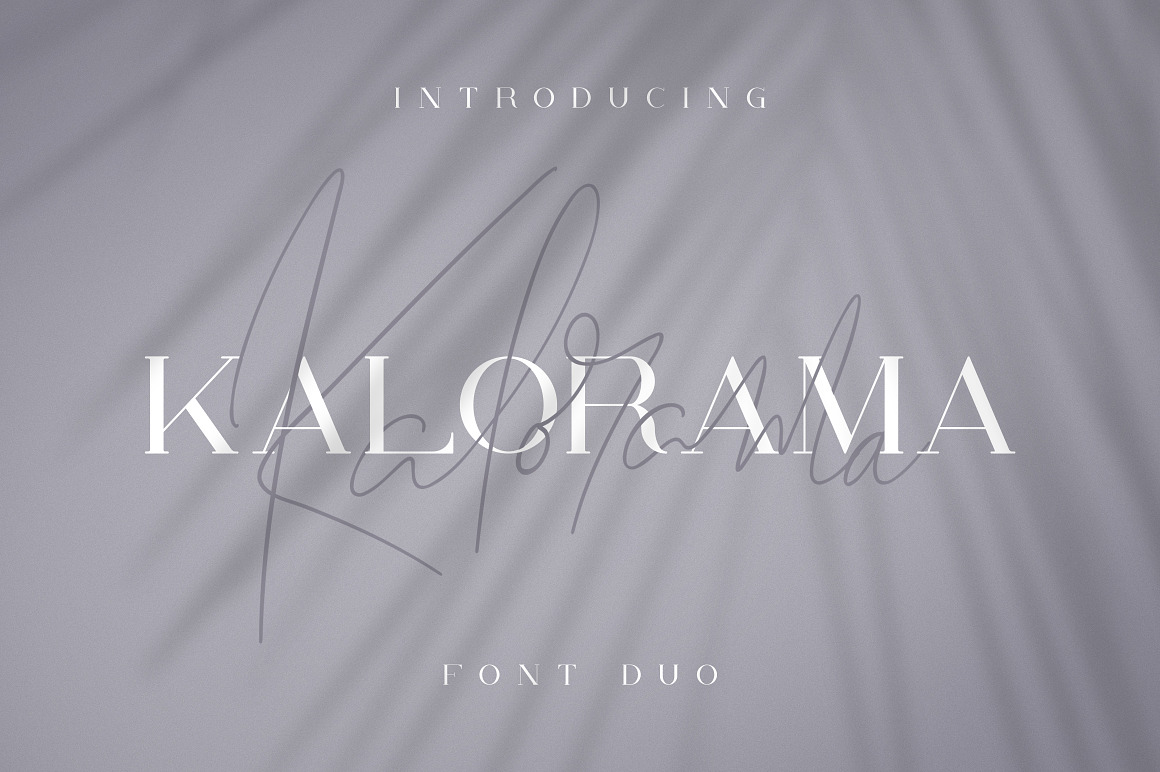
Kalorama Font Duo
Kalorama Font Duo is perfect for upscale neighborhood branding, sophisticated residential developments, elegant real estate marketing, refined cultural institutions, distinguished embassy communications, prestigious diplomatic venues, exclusive social clubs, luxury hospitality brands, cultivated lifestyle marketing, and distinguished community organizations.
Kalorama Font Duo creates excitement because it masterfully captures the distinguished elegance and diplomatic sophistication of prestigious neighborhoods with its perfectly paired typefaces that embody both formal authority and refined grace. The font duo's complementary styles instantly convey social distinction and cultural refinement, making any brand appear prestigious and authentically sophisticated. Its carefully balanced contrast between diplomatic formality and residential warmth creates an immediate sense of established prestige that resonates with discerning audiences seeking exclusive experiences, distinguished quality, and products that celebrate the refined elegance of prestigious community living and diplomatic excellence.
The Kalorama Font Duo family includes multiple weights and styles across both fonts: Serif, Sans, Regular, Bold, Light, Medium, Italic, Distinguished, Condensed, and Diplomatic versions. Each variant maintains the duo's signature prestigious character while offering comprehensive design flexibility for sophisticated brand systems requiring both formal authority and refined elegance.
This distinguished typeface pair represents the perfect union of diplomatic typography with contemporary luxury design for prestigious organizations and distinguished communities. Kalorama Font Duo Free Download provides luxury brands and prestigious institutions with access to premium dual typography that captures the essence of diplomatic elegance and established sophistication. The font duo's refined harmony and distinguished balance make it ideal for creating memorable experiences that reflect the highest standards of social distinction and cultural refinement. Whether you're developing comprehensive identity systems for prestigious organizations, creating materials for diplomatic venues, designing communications for luxury residential developments, or producing content for exclusive cultural institutions, this font duo delivers the distinguished atmosphere that resonates with sophisticated audiences seeking genuine prestige, cultural refinement, and the exclusive quality that defines truly distinguished living. Its versatile pairing ensures outstanding performance across both formal printed materials and elegant digital communications while maintaining perfect harmony between diplomatic authority and residential sophistication. The fonts excel in applications requiring social credibility and diplomatic appeal. Prestigious organization professionals appreciate the duo's ability to convey established distinction while inspiring cultural confidence, essential qualities for building trust with discerning communities. The comprehensive character sets include diplomatic flourishes and extensive international language support, making it perfect for global luxury brands and international diplomatic organizations seeking to communicate authentic prestige, cultural sophistication, and distinguished excellence to diverse worldwide audiences who value social distinction, appreciate cultural refinement, and embrace the prestigious lifestyle that comes from living and working in the most distinguished neighborhoods and diplomatic circles where elegance, sophistication, and cultural excellence define every aspect of refined community living.